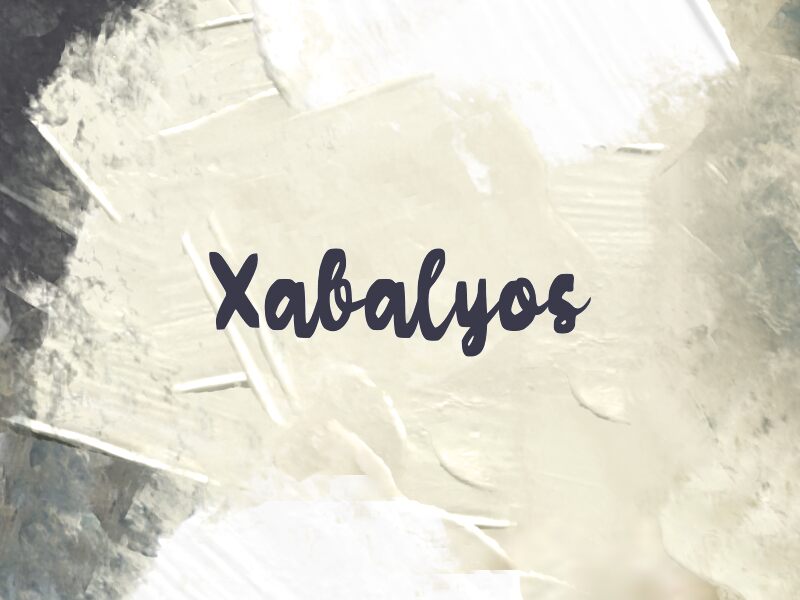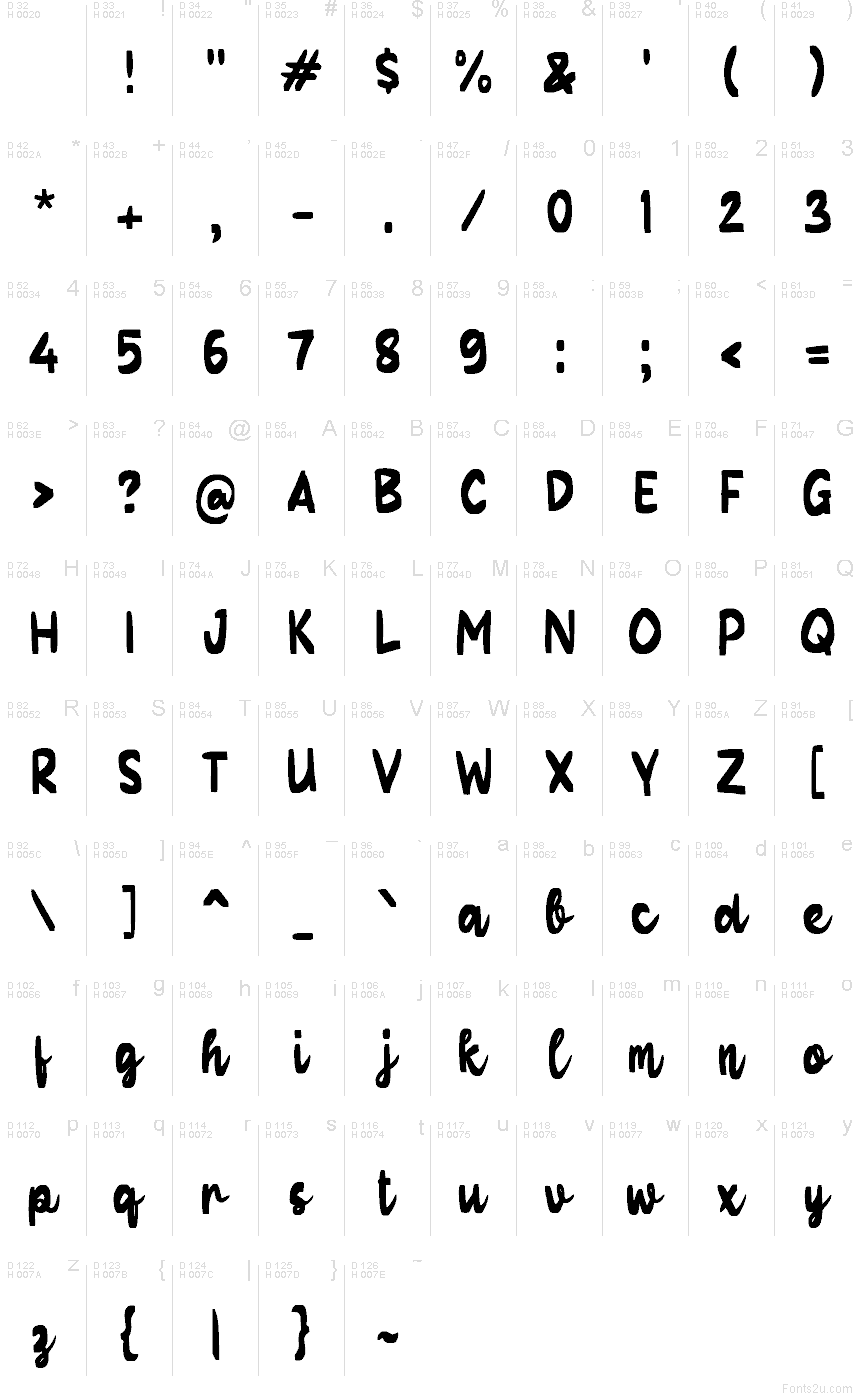
Xabalyos
Xabalyos font by wepfont.com is a free brush script typeface that looks like it’s been painted in thick, inky strokes. The letters are bold, tightly connected, and a little messy in a deliberate way, giving it a lively, hand-lettered feel that jumps off the page. It has the energy of a marker tag on a wall or a brush pen on textured paper, making every word feel loud, confident, and a bit rebellious.
Using Xabalyos, this free font shines on branding that needs attitude—streetwear logos, music covers, bold posters, packaging, café boards, or social media graphics that demand attention. It reads clearly even at larger sizes, so don’t be afraid to scale it up and let the strokes show. For balance, pair Xabalyos with a clean, lightweight sans serif for body copy to keep your layouts strong but readable.